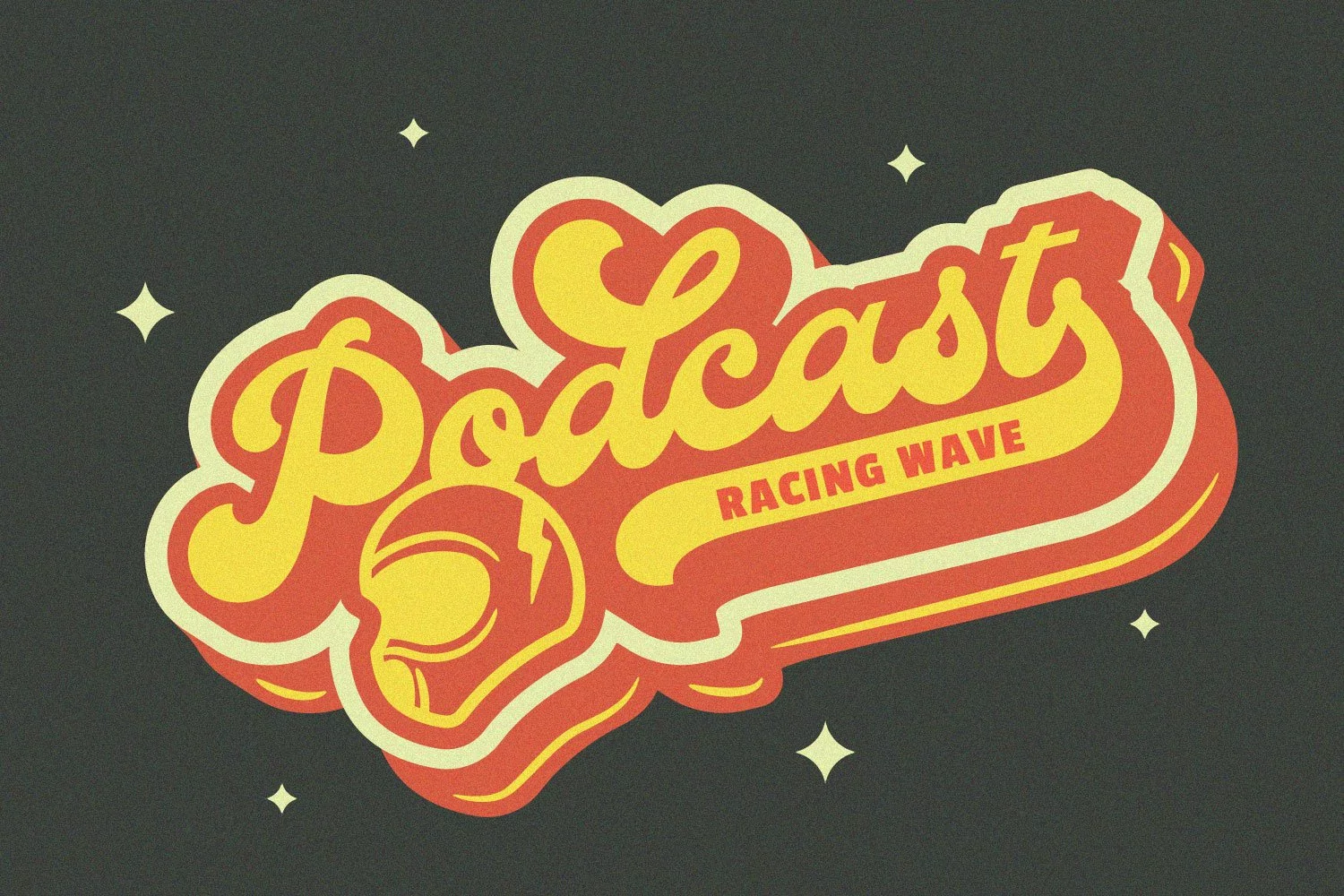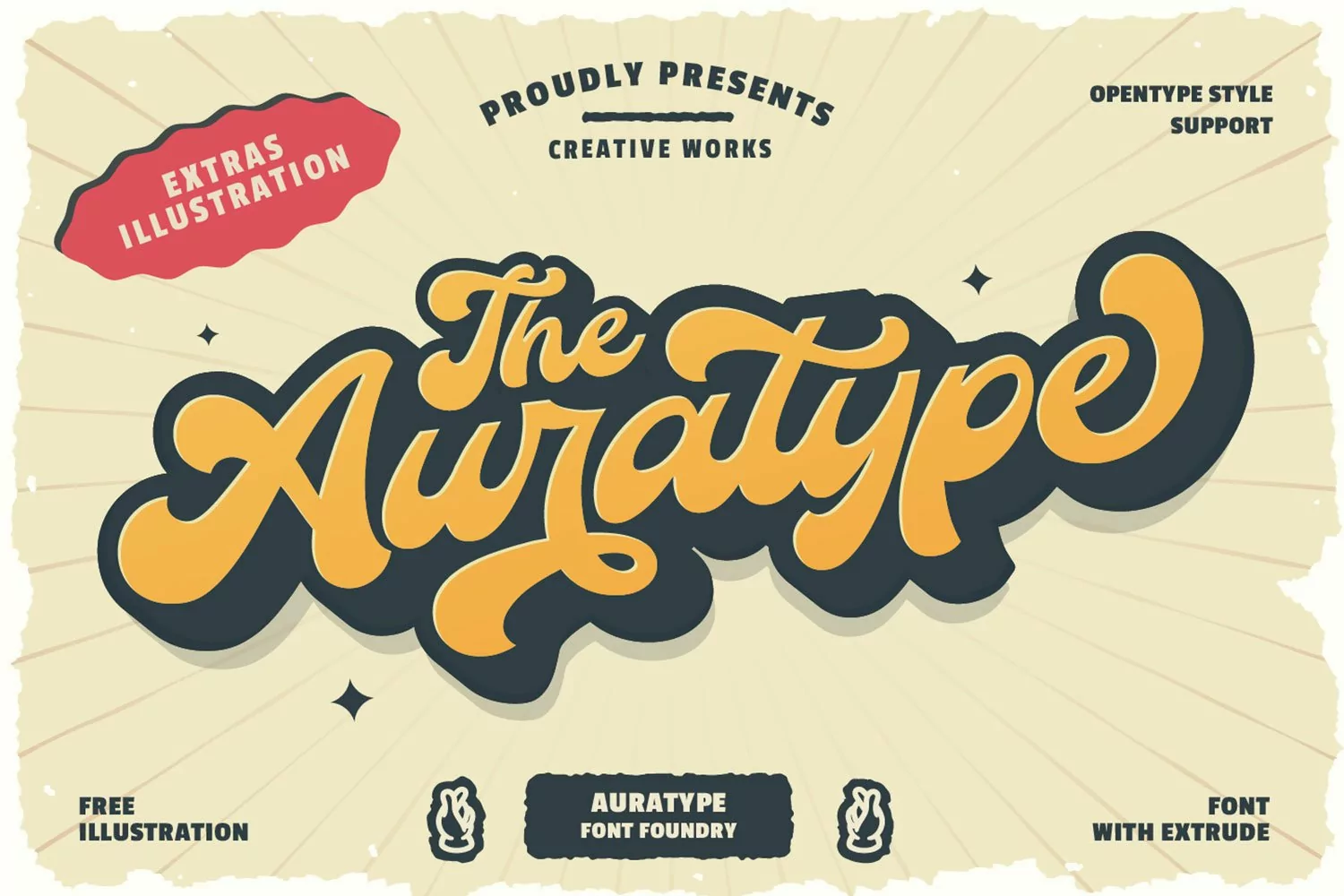
The Auratype - Retro Font & Extras Illustration
The Auratype is retro and classic typeface who inspired by the 60s - 80s designs with more unique explored style like swosh and alternate character. This font made from manual sketch with many many scratch then finished to font. Make your designs project with this font and extras illustration to give more superb. This font also suitable to design like logo, sticker, tees design, banner, poster, sign, display design, packaging and more superb designs!
Full set of Upper & Lowercase Character
Number & Punctuation
Swosh Alternate
Extras Illustration
Multilingual Language
Opentype Features